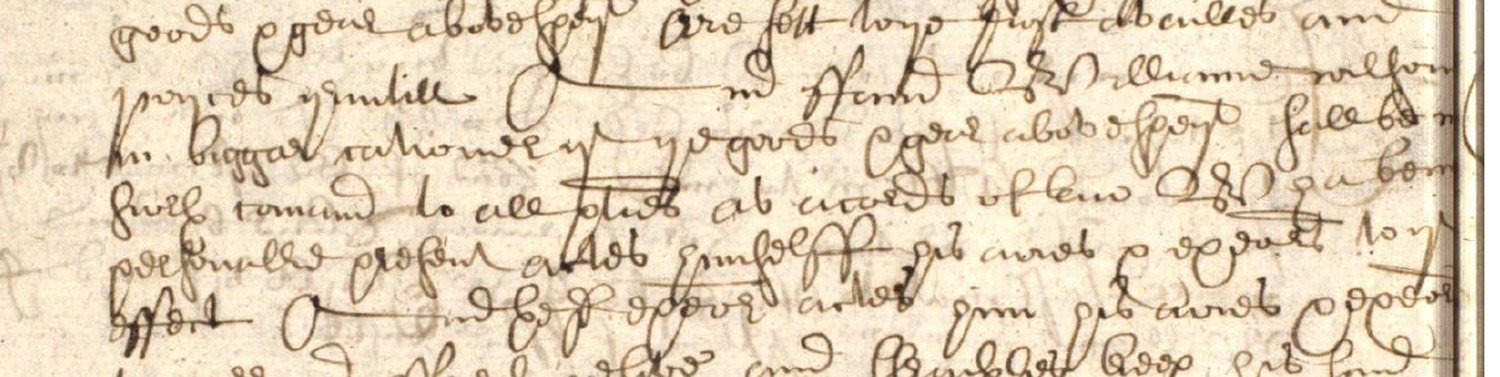
The named participants here are administering an estate. The enlarged words help separate personal names from procedural language in a dense court hand. Read the action and office alongside each name: neither an appearance in court nor a caution obligation establishes family membership.
New to secretary hand? Start with the shapes.
Follow the writing line. Ascenders rise above small letters; descenders fall below them. A neighbouring line can cross the word you are reading.
Count the short strokes. These are called minims. Joined i, m, n and u shapes can be ambiguous; compare a clear repeated word by the same clerk rather than guessing from a modern alphabet.
Separate reading from expansion. A contraction is not a fully written modern word. Square brackets retain doubtful letters or editorial additions. A familiar legal formula is a clue, not permission to fill a gap.
Then assess the relationship. Reading a name securely is not the same as proving kinship. Look for the actual role words and who they refer to.
Choose a name or relationship below. Compare the original ink, a paper-free view and the same spelling in a secretary-hand teaching font. Open the reasoning only when you need it.
01Alexr: recognise an abbreviation without inventing the omitted lettersAlexr: recognise an abbreviation without inventing the omitted lettersInspect reading
Proposed readingAlexr
The forename repeats in the estate proceedings. The maintained reading is Alexr Broun, not George Broun. Compare the compact ending with the alphabet while keeping the distinction between what is written and what the abbreviation expands to.
03 Same spelling, another hand Joscelyn teaching font
The white-background view suppresses paper colour; reviewed focus boundaries exclude separable neighbouring fragments where available. It does not restore missing strokes. Colour follows retained source pixels inside proposed letter groups, not a reconstructed pen path. Ambiguous crossings remain neutral where reviewed; other crossing ink may still belong to another line.
The font repeats the proposed spelling, not this clerk's handwriting. Similarity is a teaching aid, not confirmation; uncertainties remain in the reading above.
Locate the word in its passage Original contextThe forename repeats in the estate proceedings. The maintained reading is Alexr Broun, not George Broun. Compare the compact ending with the alphabet while keeping the distinction between what is written and what the abbreviation expands to.Reading, meaning and uncertainty
Expansion: Alexander
Confidence: High from the repeated administrator name; the expansion is not a literal transcription of extra ink.
Evidence boundary: Alexander Brown and John Neilson are administrators. Their offices are explicit; neither this abbreviation nor appointment as executor proves kinship to William Glasgow.
... Compeirit personallie ... / Alexr broun and Jon neilsone ... / [following production wording unresolved] ...
In modern English
Alexander Brown and John Neilson appear personally in the estate proceeding as the executors dative; the following production wording is not securely resolved in this crop.
How to read it
The two names occupy the line immediately below Compeirit personallie. Their capitals and descending g/J strokes distinguish the names from the tighter procedural script around them. The next line appears to continue an act of production, but the words previously rendered particular Inventar are not secure enough to quote or box. Neither highlighted name is accompanied here by son, brother or another family term.
What this establishes
Alexander Brown and John Neilson are the executors dative and participate in the estate's formal inventory administration.
What it does not establish
Their participation does not identify either man as William Glasgow's relative or establish William's family.
High for the two names and their appearance in the proceeding; low for the unboxed production wording.
Slow reading
Inspect the words, not just the conclusion.
Compare the original strokes with the proposed reading. Tall or trailing strokes from neighbouring lines may enter a sample; the notes distinguish what is visible from what remains uncertain.
Phrase 01
Alexr broun
Alexander Brown
Magnified from the same manuscript image. No letters have been redrawn.
Look at the strokes
George opens with a large looped G that stands above the smaller following letters.
The second g drops below the baseline in a narrow loop.
Alexr is the clerk's abbreviated Alexander; its opening and final raised r recur in the executor line on the adjacent image.